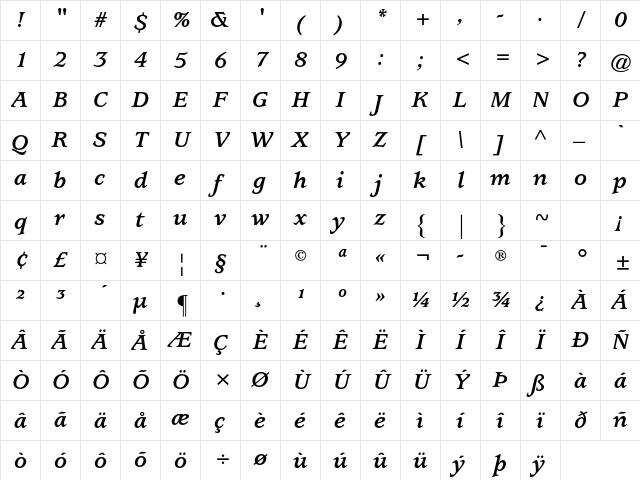
ITC Usherwood Std Bold Italic
Designer: Leslie Usherwood
Complete ITC Usherwood Std Bold Italic glyph index. Displaying only characters natively supported by ITC Usherwood Std Bold Italic font.
Design Context for ITC Usherwood Std
ITC Usherwood Std echoes the hand-painted signage and woodblock typography of the American frontier, with a warm, rugged personality. The slanted form adds forward momentum and visual energy. Its bold stroke weight gives it real presence on the page.
Font Pairing: Combine ITC Usherwood Std with a simple slab or neutral sans - period-accurate companions reinforce the vintage feel without competing for attention.
Pro Tip: Use ITC Usherwood Std for short, impactful bursts of text - it shines in poster headlines and product names rather than extended copy.